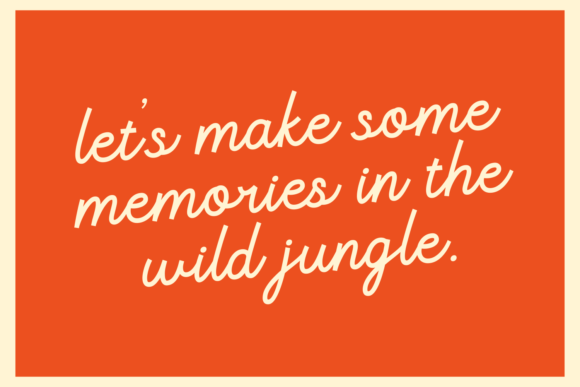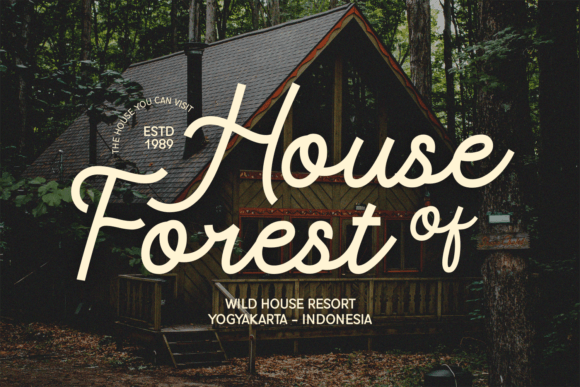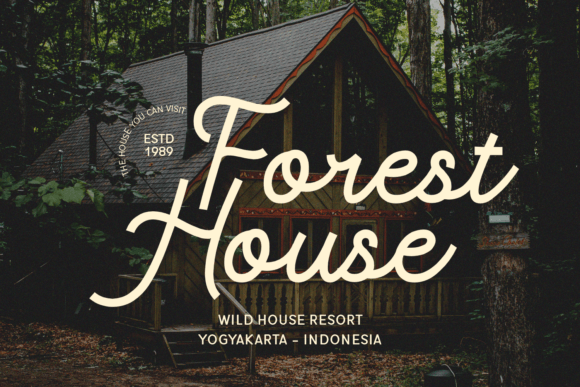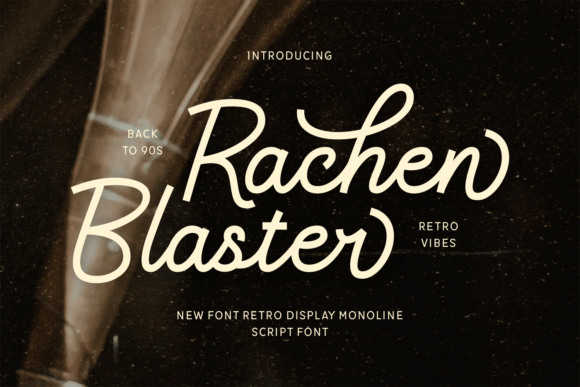
Introduction to Rachen Blaster Font
Rachen Blaster is a retro display monoline script font that combines vintage charm with sleek, continuous strokes.
Its consistent line weight and bold, curvy letterforms evoke a nostalgic feel, reminiscent of classic signage and retro advertisements The playful, flowing design of the font makes it perfect for attention-grabbing headlines, logos, posters, and branding that aim for a bold, vintage aesthetic.